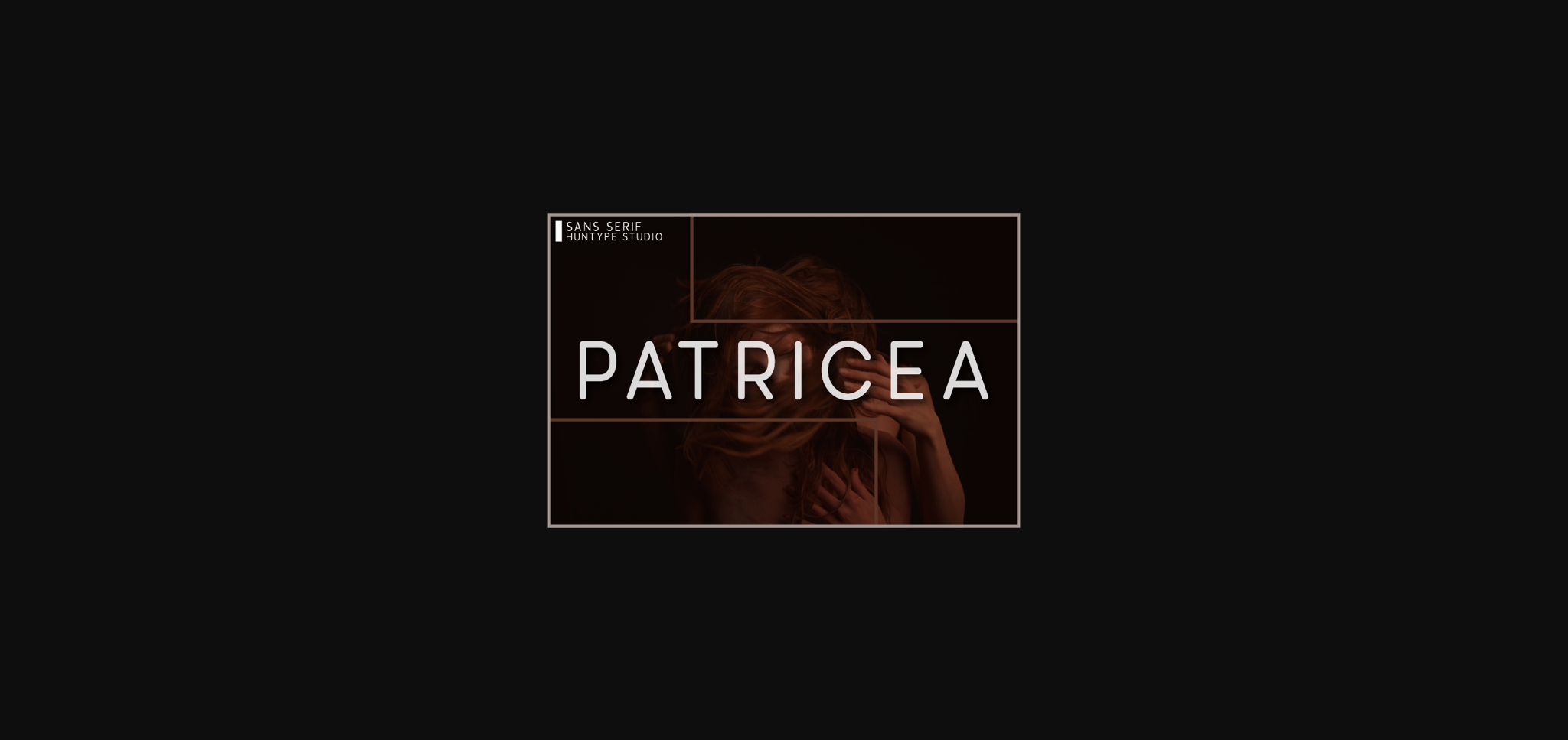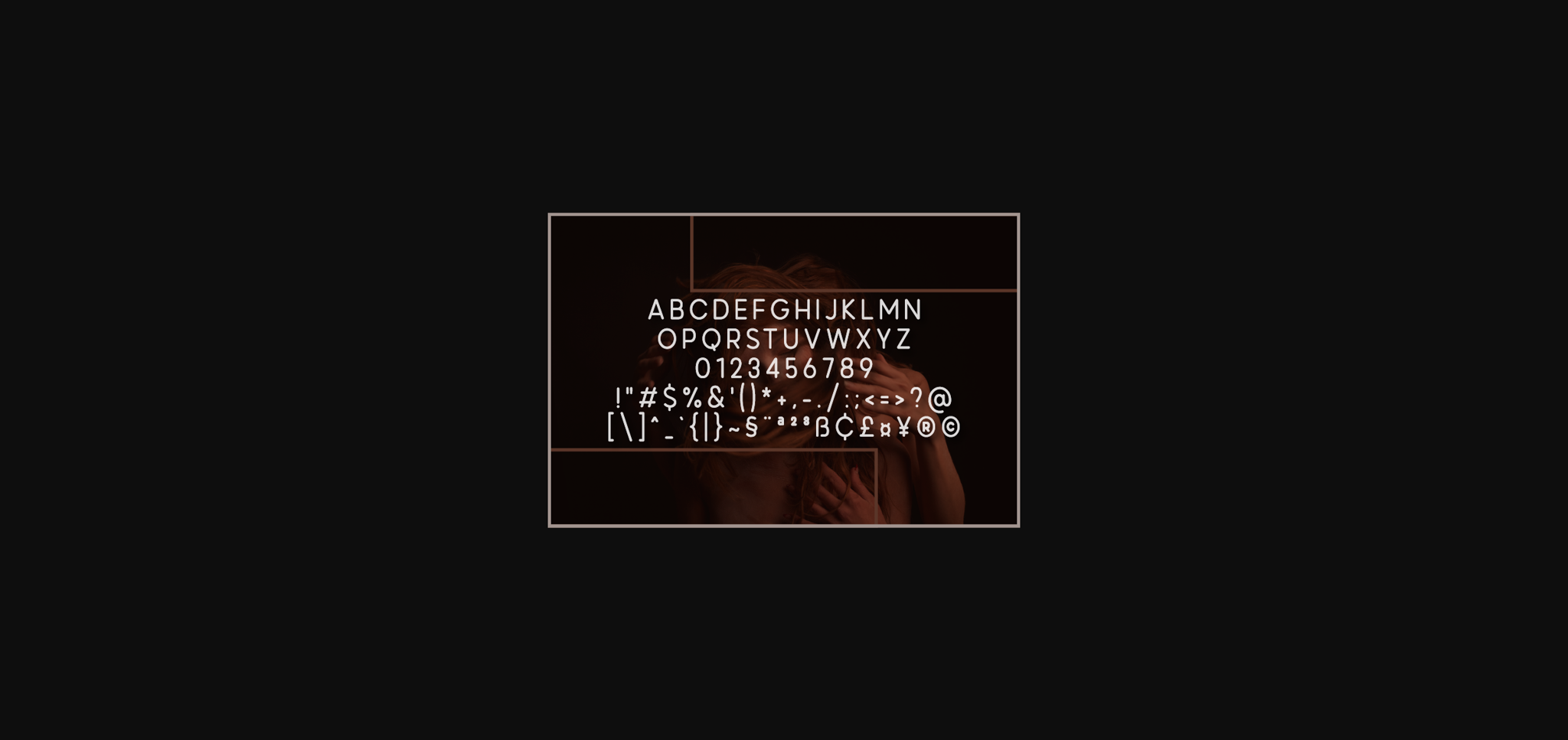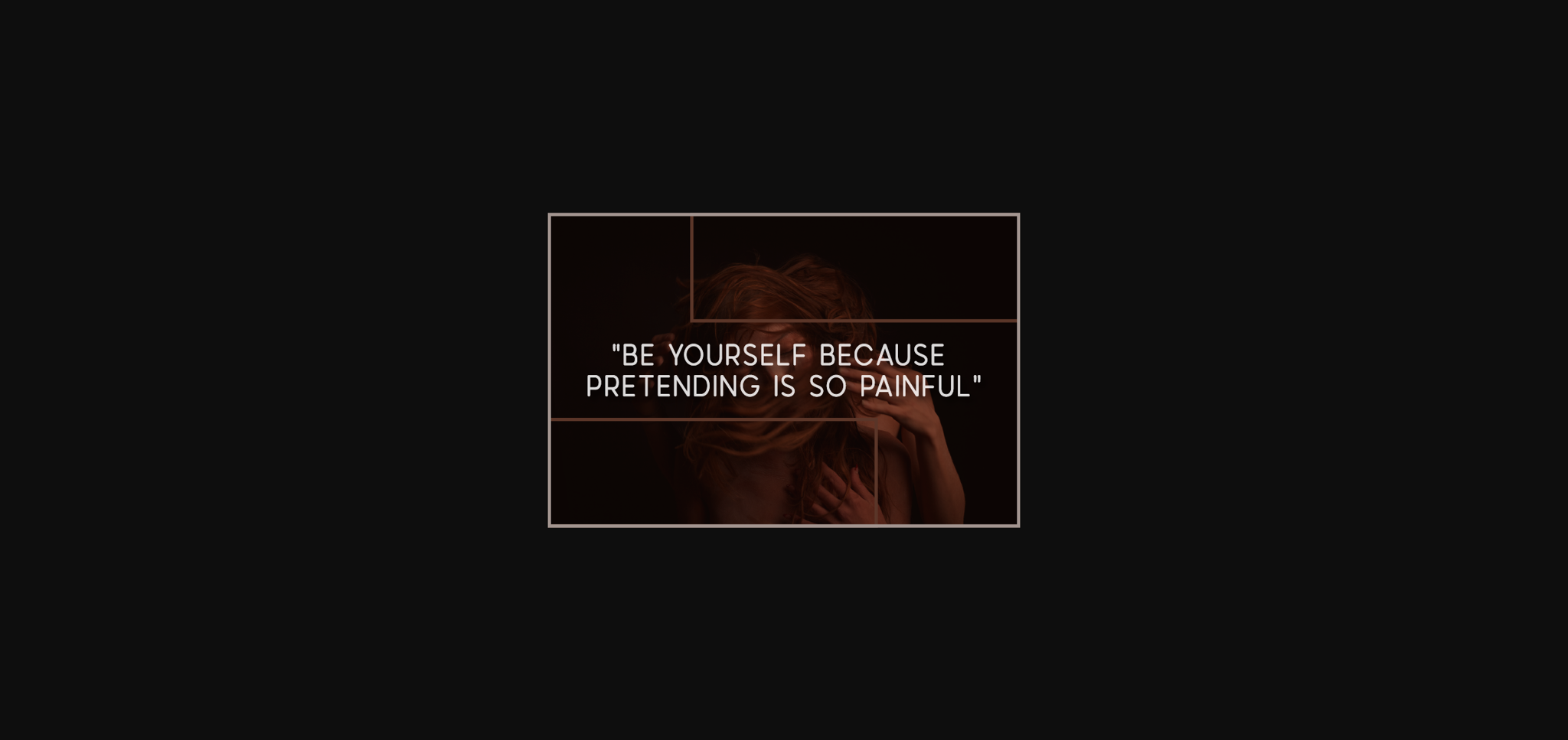
Patricea is a fancy, contemporary sans serif font. It will complement any design need perfectly with its perfectly balanced mix of the smooth and sharp!